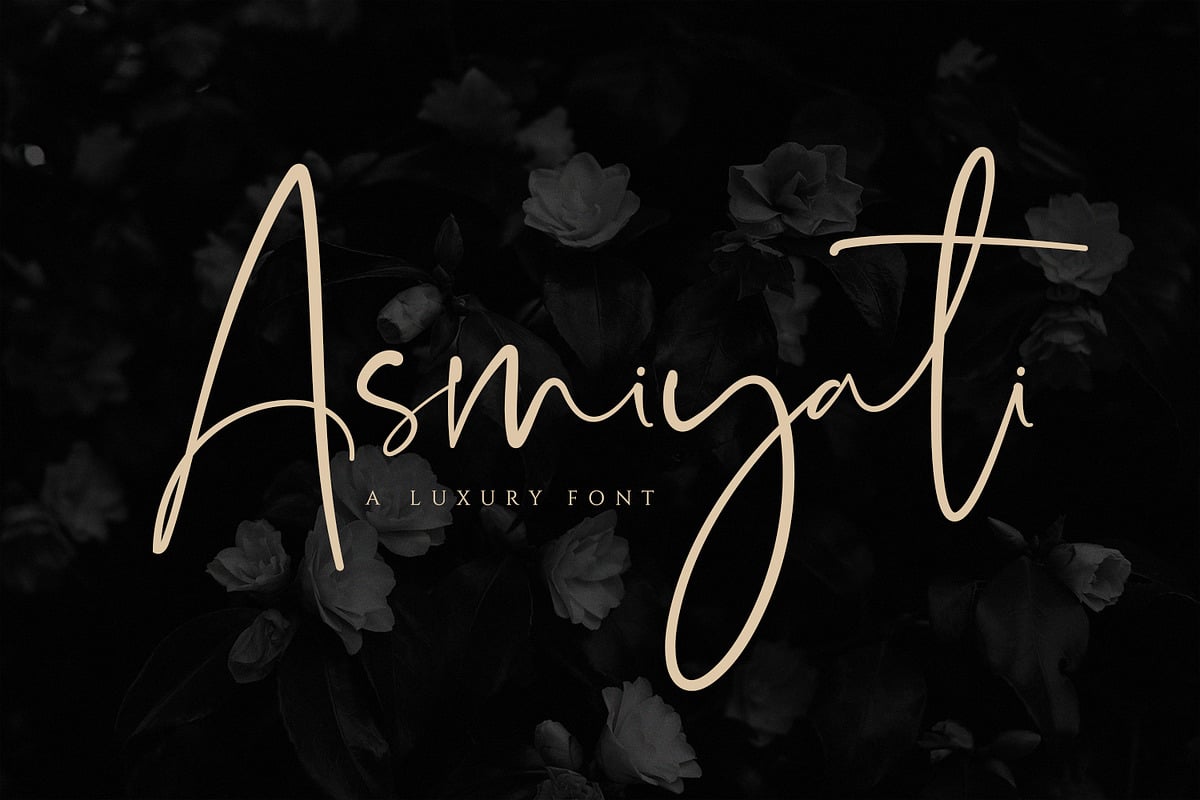
Asmiyati | A Luxury Script Font
Asmiyati is a flowing luxury script font with unique handwritten character and effortless elegance.
Whether you're designing logos, business cards, magazine layouts, invitations, or large-scale artwork, Asmiyati brings a refined, handcrafted touch to any creative project. Its smooth italicized letterforms make it especially stunning for beauty, bridal, and boutique branding.
- Asmiyati Script — a clean, italic handwriting font with upper & lowercase characters, numerals, and additional symbols